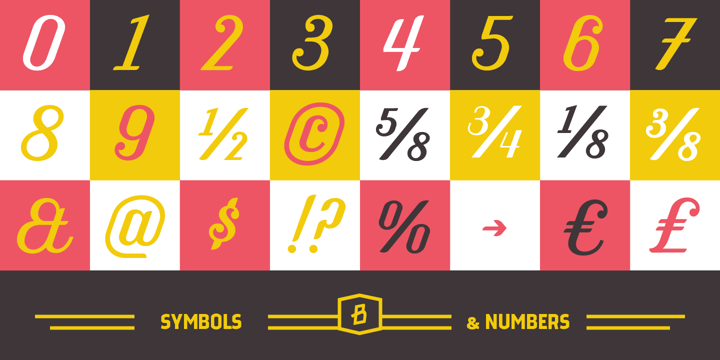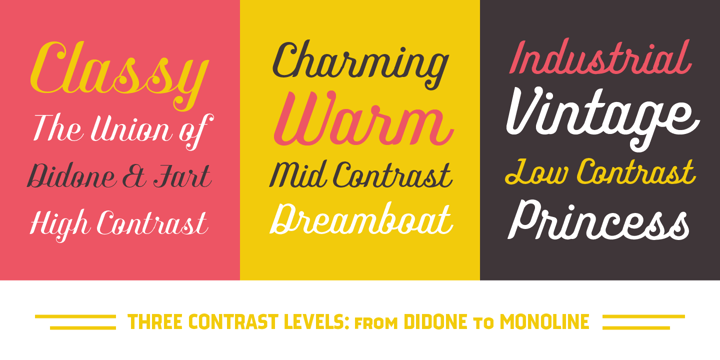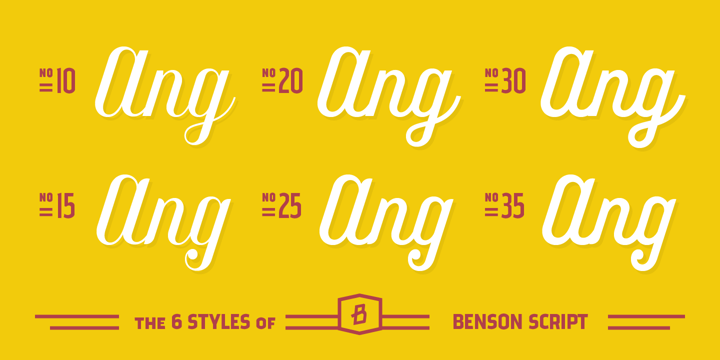
About Benson Script
Benson Script is a script that is desperately trying to be anything but a script. With 3 contrast levels, and 2 styles, the six styles of Benson Script are an experiment in the diversity of a single stem width. Modernism\’s desire to fit all elements…